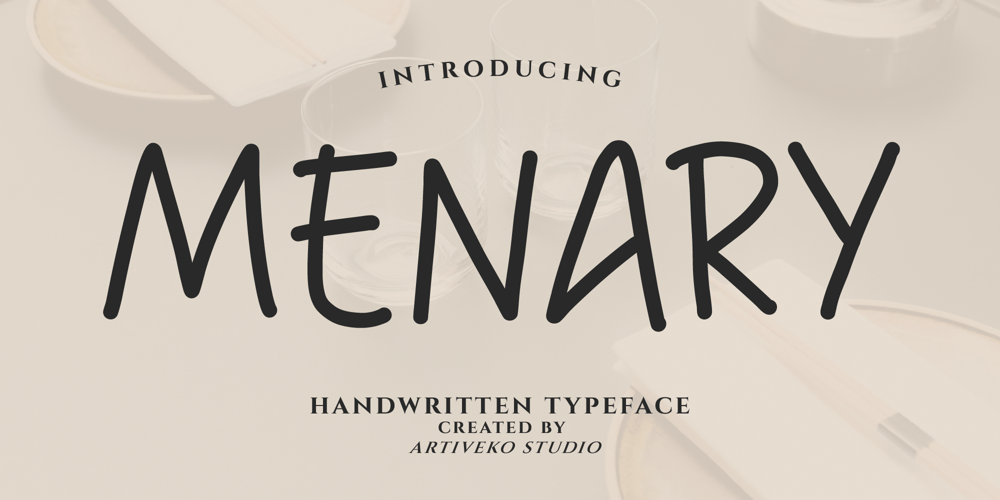
Menary
Menary font
Menary Font Family was designed by Iwan Alwan and published by Artiveko. Menary contains 2 styles and family package options. Menary is a charming handwritten font designed by Iwan Alwan, featuring smooth, flowing strokes that capture the authenticity of hand-drawn letters. Perfect for invitations, branding, social media graphics, and creative projects, Menary adds a personal, artistic touch to any design. With multilingual support, ligatures, and alternates, Menary offers versatility while maintaining its warm, handcrafted aesthetic, making it ideal for projects that seek a natural, humanized feel.